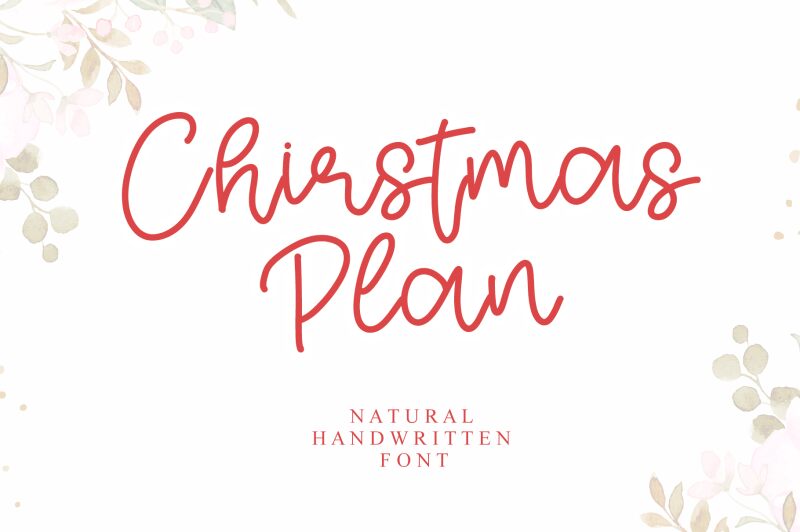
Christmas Plan font by Letterafa Studio is a free handwritten font that exudes an informal mood and approachable appearance. Its casual feel perfectly captures the essence of handwriting, making it a great choice when looking to personalize any design project. Whether throwing out a headline or adding some body text details, this free font will come in handy in bringing personality to your projects.
Implement this font in branding projects, advertising, and packaging. Use it in stationery, greeting cards, logotypes, infographics, posters, and apparel designs. And when sharing your artworks online, the font adapts nicely in a variety of sizes.